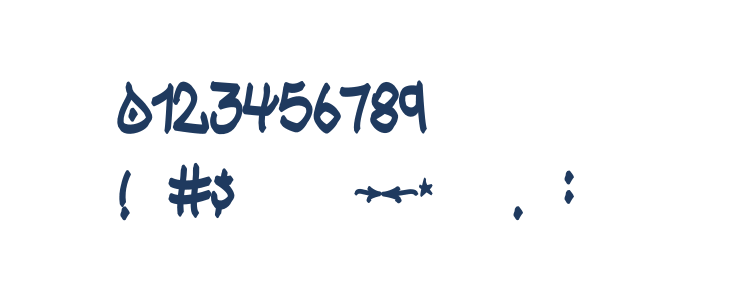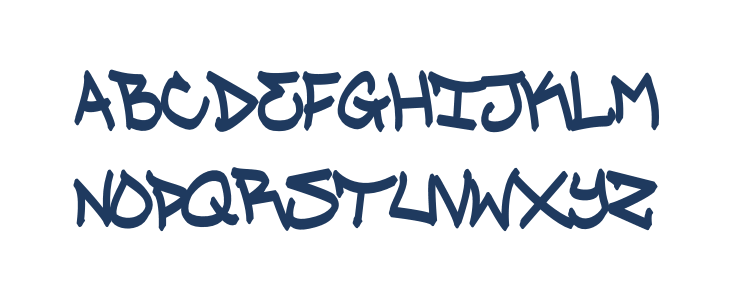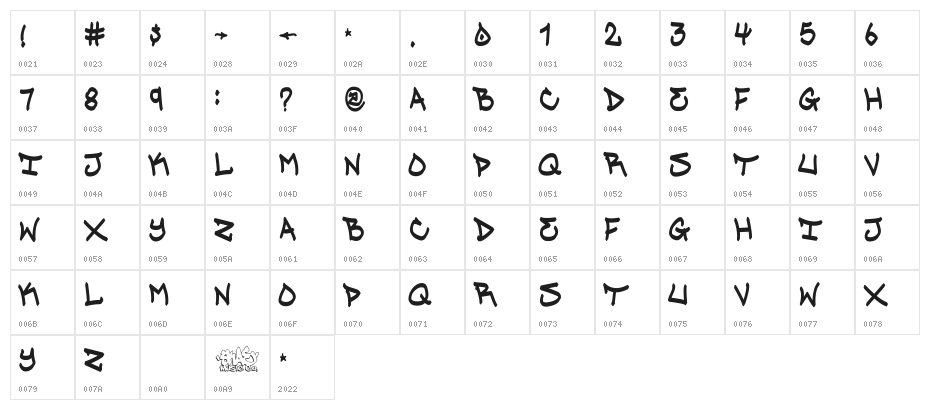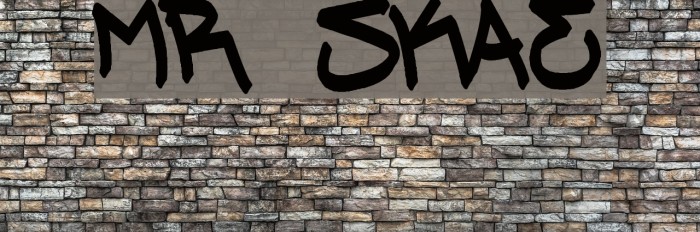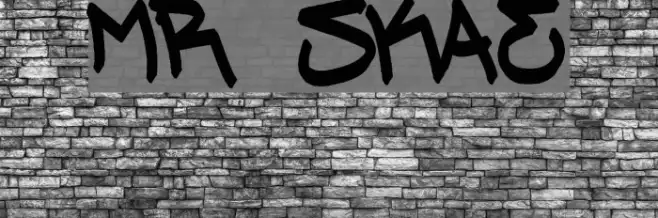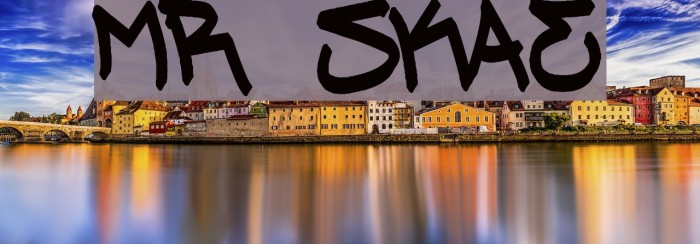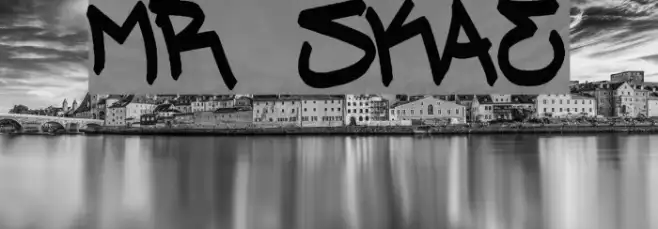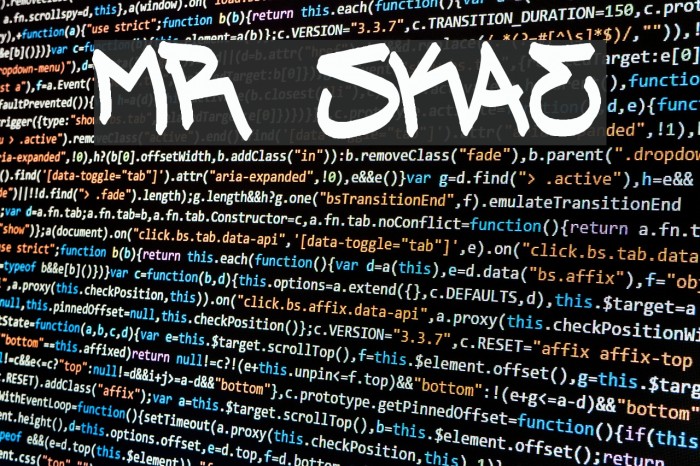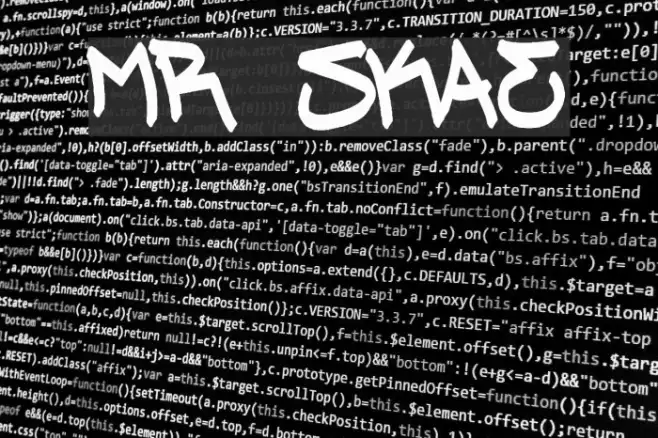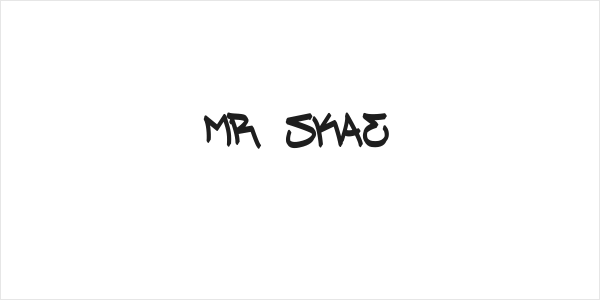
MR SKAE Font
This font features a bold, graffiti-inspired style with a hand-drawn appearance. The letters are unevenly shaped, giving them a dynamic and energetic feel. The uppercase and lowercase characters maintain a consistent style, with exaggerated curves and angles that create a sense of movement. The numbers and special characters follow the same aesthetic, adding to the cohesive look of the font. The overall design is playful and rebellious, making it ideal for projects that require a bold and unconventional look.
Overall StyleModern, Urban
Proposed ProjectsIdeal for street art designs, urban-themed posters, music album covers, and youth-oriented branding.